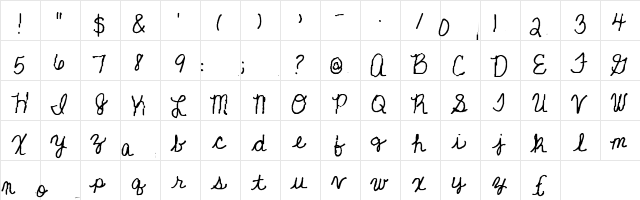
RubieJoScript2 Regular
Design Context for RubieJoScript2 Typeface
RubieJoScript2 flows with the natural rhythm of handwritten lettering, making it ideal for designs that call for warmth and personal expression.
Font Pairing: Combine RubieJoScript2 with a simple geometric sans for maximum contrast — the tension between flowing curves and clean structure is a classic typographic pairing.
Pro Tip: Pair RubieJoScript2 with a clean sans-serif for supporting text. The contrast between fluid script and geometric structure creates an elegant typographic hierarchy.